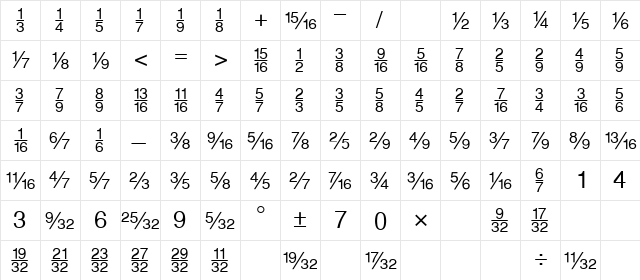
Sans Fractions Plain
Design Context for Sans Fractions Typeface
Sans Fractions takes a measured approach to typography — its balanced proportions and neutral character make it a reliable workhorse for both digital and print work.